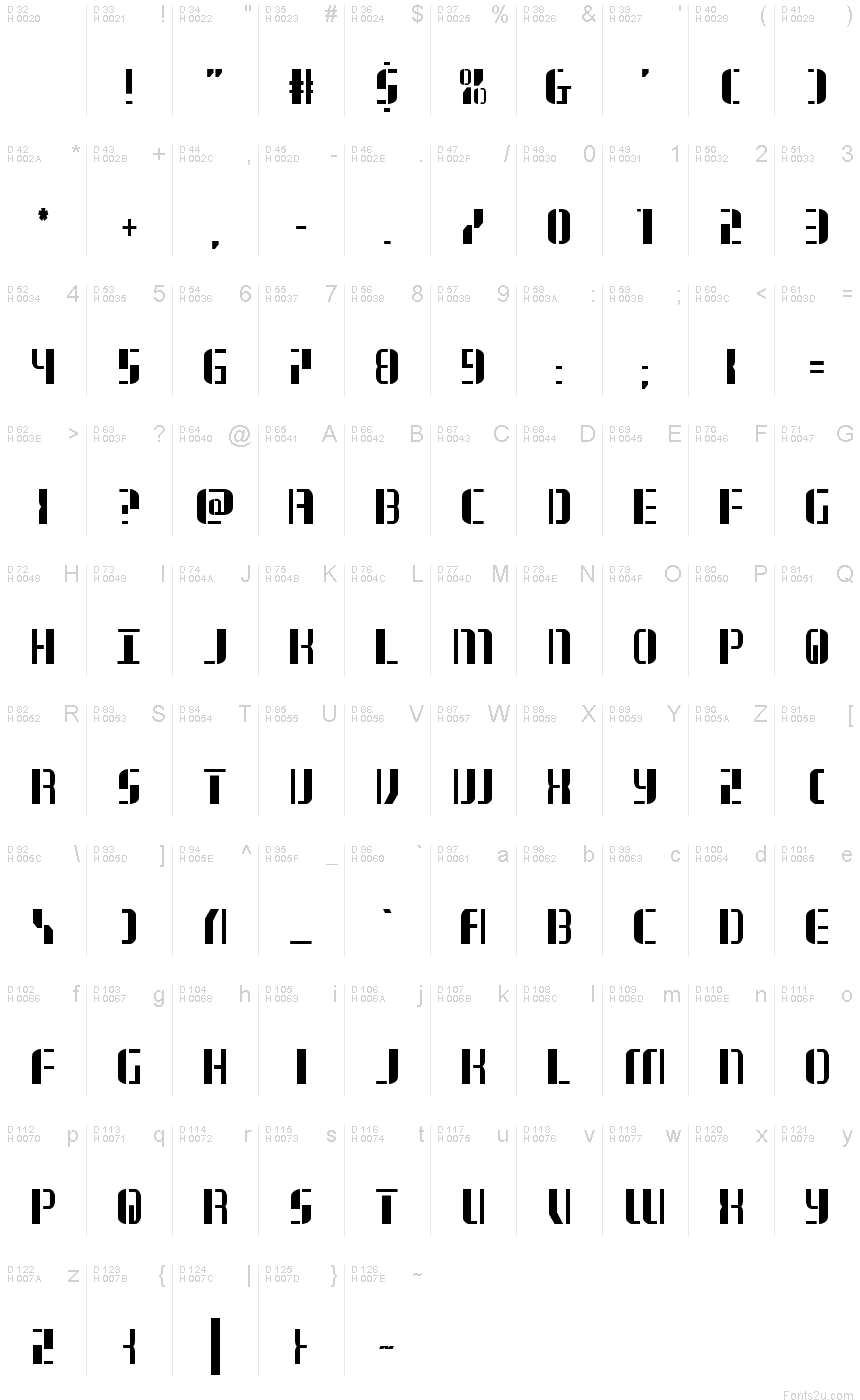
Jetway Condensed, created in 2011 by Iconian Fonts, is a free futuristic display font with an extremely narrow build. Its towering letters combine broad vertical strokes with hairline crossbars and sharply cut openings. Rounded shoulders soften the machinery.
It can give science-fiction film posters a stark engineered title, yet its compressed profile also suits racing merchandise and automotive branding. The repeated slots and squared joins recall dashboard markings and industrial control panels. Those mechanical cues also make it a convincing option for game interfaces and technology-themed event graphics.